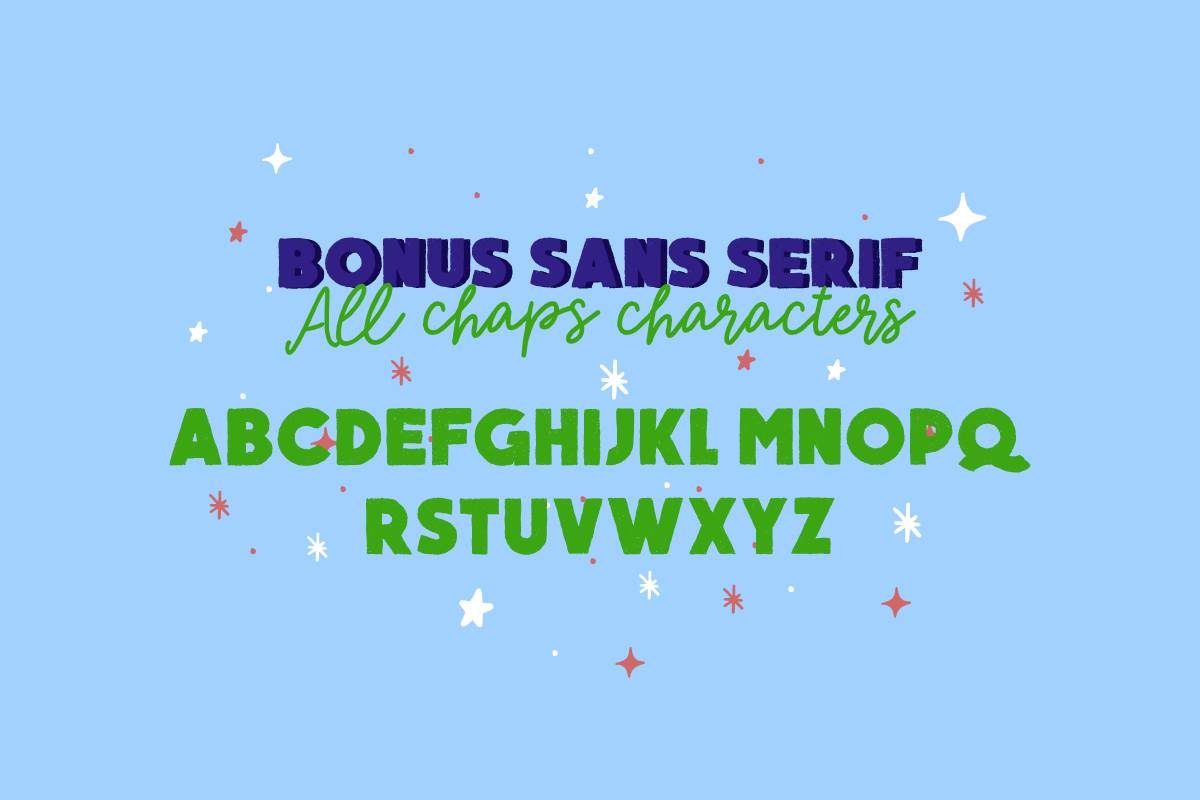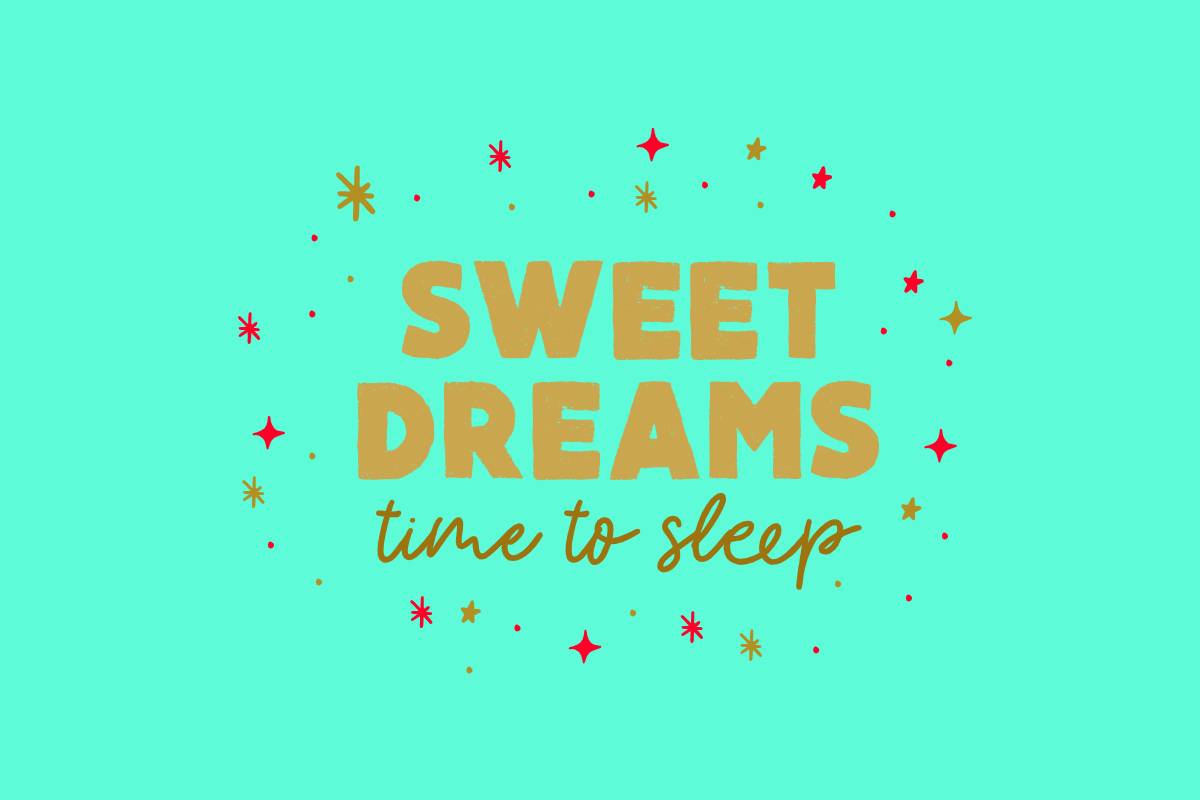
Magical Shiny Script is a light, elegant handwritten font with a smooth, flowing style that feels personal and inviting. Its clean, slender strokes and natural curves make it perfect for creative projects like branding, invitations, and casual editorial use where a friendly yet refined touch is desired. This font works well in designs that want to communicate warmth, charm, and a modern handcrafted look.
Magical Shiny Font
About Magical Shiny Font
| Designer | Jamaludin @Jimtypestudio |